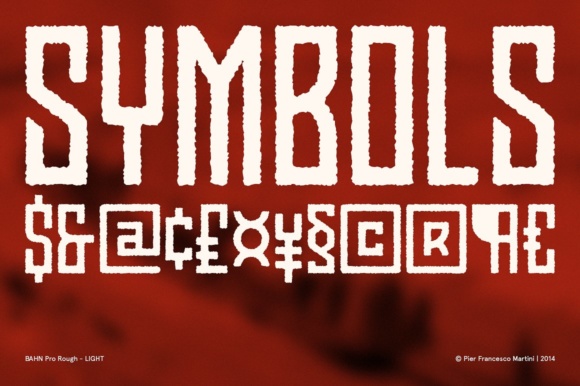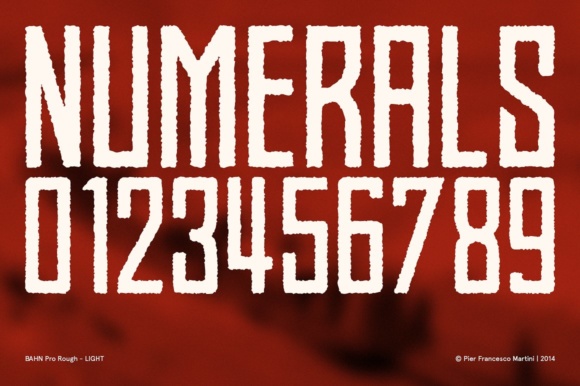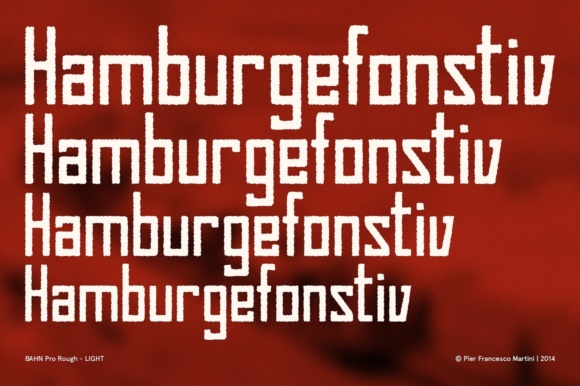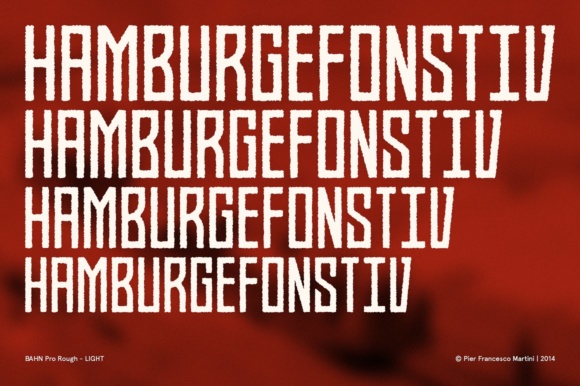
Bahn Light Font: A Lightweight yet Powerful Display Font
In the world of typography, fonts play a crucial role in conveying messages, expressing creativity, and capturing attention. Among the numerous font families available, Bahn Light has gained significant popularity for its unique blend of ruggedness and elegance. As the light-weight version of the larger Bahn family, Bahn Light offers a distinctive and versatile solution for designers and crafters seeking to add a touch of personality to their projects.
What is Bahn Light Font?
Bahn Light is a display font that boasts a rough, intriguing texture, making it perfect for use in a wide range of applications, from print products to digital media. As a member of the Bahn family, Bahn Light shares its roots with its more robust counterparts, but with a lighter, more refined aesthetic. This font is designed to be used as a focal point, drawing attention and adding visual interest to any design.
Key Features of Bahn Light Font
- Lightweight yet Impactful: Bahn Light’s subtle weight makes it an excellent choice for designs where a bold statement is not necessary, but a hint of personality is desired.
- Rough Texture: The font’s rough texture adds a layer of depth and visual interest, giving designs a unique, handmade feel.
- Versatile: Bahn Light is suitable for a wide range of projects, including print products, digital media, packaging, and more.
- Easy to Read: Despite its rough texture, Bahn Light remains highly legible, making it an excellent choice for body text and headlines.
Use Cases for Bahn Light Font
Bahn Light’s versatility makes it an excellent addition to any designer’s toolkit. Here are some use cases where Bahn Light shines:
- Print Products: Use Bahn Light as a headline font for brochures, posters, flyers, and business cards to add a touch of personality.
- Branding and Packaging: Bahn Light is perfect for creating eye-catching labels, product packaging, and brand signage.
- Digital Media: Employ Bahn Light in social media graphics, blog posts, and website headers to add visual interest.
- Crafting and DIY Projects: Bahn Light is a great choice for crafters, scrapbookers, and DIY enthusiasts looking to add a personal touch to their projects.
Tips for Using Bahn Light Font Effectively
To get the most out of Bahn Light, consider the following tips:
- Pair with Contrasting Fonts: Combine Bahn Light with smoother, more refined fonts to create visual contrast and hierarchy.
- Experiment with Colors: Bahn Light looks great in bold, bright colors, but also try pairing it with more muted tones for a subtle look.
- Play with Texture: Take advantage of Bahn Light’s rough texture by layering it with other textures or patterns.
Bahn Light Font is a powerful yet lightweight display font that offers a unique blend of ruggedness and elegance. Its versatility, legibility, and visual interest make it an excellent choice for designers and crafters seeking to add personality to their projects. Whether used in print products, digital media, or crafting projects, Bahn Light is sure to make a statement. So why not give Bahn Light a try and discover the creative possibilities it has to offer?